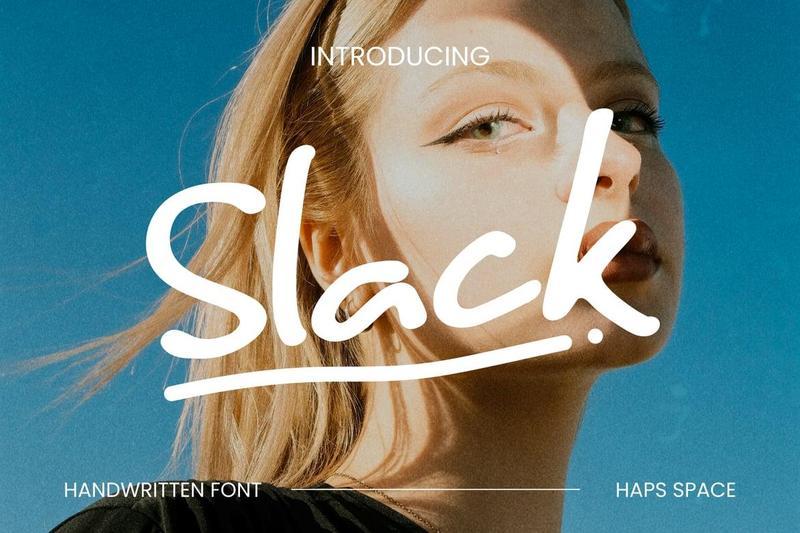
Embrace a cool, effortless aesthetic with Slack, a modern handwritten font designed to give your creative projects an instant burst of personality. Featuring natural pen strokes, smooth monoline curves, and a relaxed visual rhythm, this font perfectly captures the carefree spirit of youth culture and contemporary lifestyle design.
Slack breaks away from rigid structures to offer an authentic, hand-drawn look that feels both human and highly stylish. It is the perfect choice for creators who want to build a genuine, approachable connection with their audience, ensuring that every headline, signature, or quote feels personalized and custom-made.